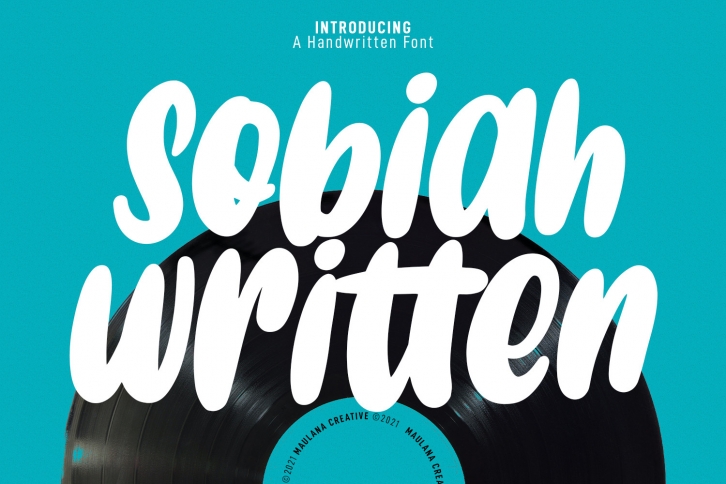
Sobiah is a cool, paint brushed and chic display font. This gentle font will look gorgeous on a variety of design ideas. It will add a joyful and romantic touch to each of your projects!